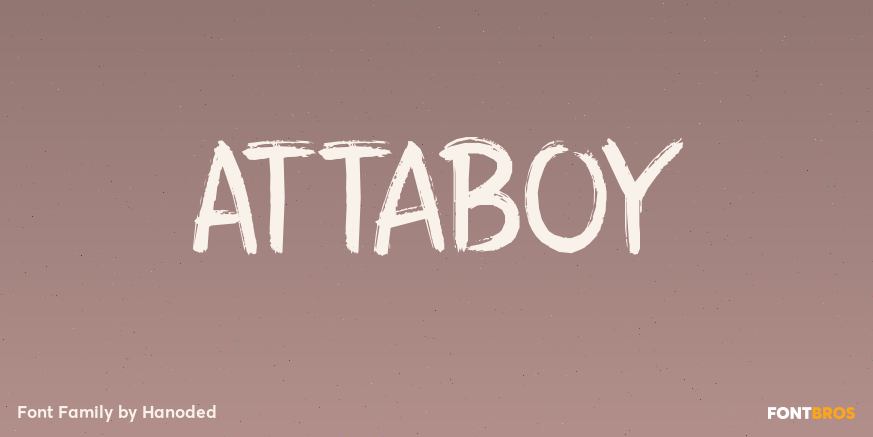
Attaboy
Attaboy is a posh word for ?well done?. It was made with a broken marker pen to give it that ?eroded? look. It is an all caps typeface, but upper and lower case can be mixed. Attaboy comes with stylistic alternates for the lower case glyphs and all the…